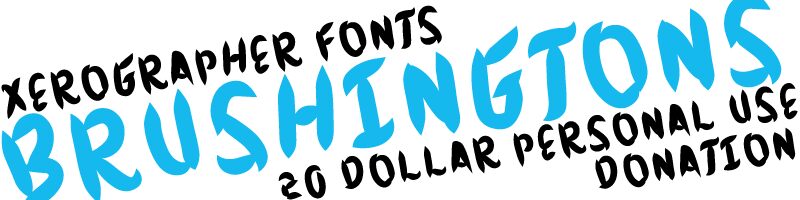
Brushingtons by Max Infeld of Xerographer.com is a free brush script whose broad, sharply tapered strokes create a restless silhouette of blunt curves, sudden points, and irregular edges. Changing widths keep every letter raw and lively.
Packaging gives this lettering a forceful voice on hot sauces and craft drinks, and its rough movement also suits concert posters and skate merchandise. In editorial illustration, the pointed forms can echo flames, torn paper, or energetic character art, allowing a masthead to become part of the picture instead of functioning as a neutral caption.
The font is named Brushingtons.
The font was made with an Android phone.